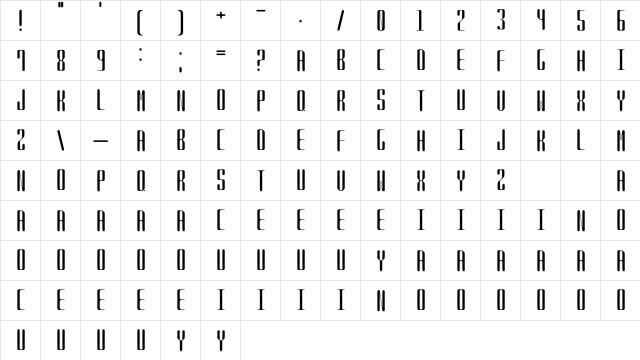
QVR Sharp Display Rounded
| Foundry | NiccolؠAgnoletti |
| Designer | blazardsky |
Design Context for QVR Sharp Display Typeface
QVR Sharp Display is built around its visual character rather than neutral utility — its distinctive forms are designed to make an impression at display sizes.
Font Pairing: Pair with a clean neutral sans-serif for body copy to let QVR Sharp Display's character lead without overwhelming the composition.
Pro Tip: Use QVR Sharp Display exclusively at display sizes — it was designed to be seen, not read at length. Let a neutral companion handle body copy.